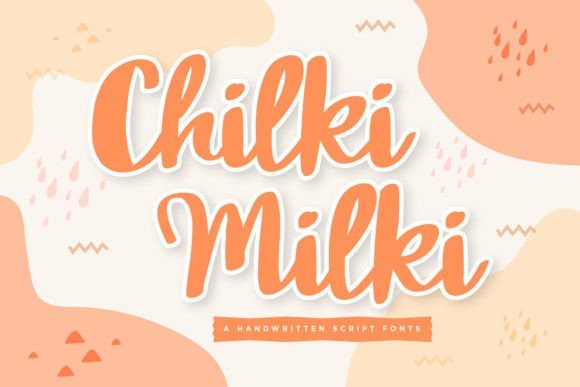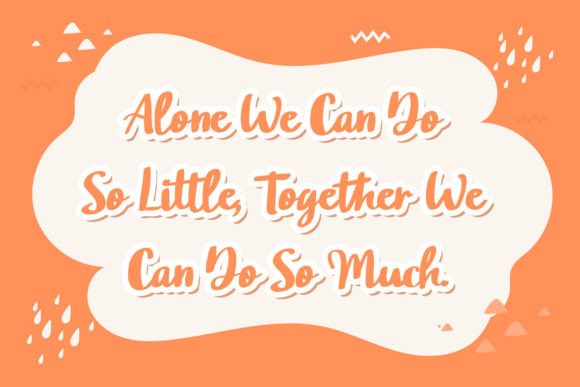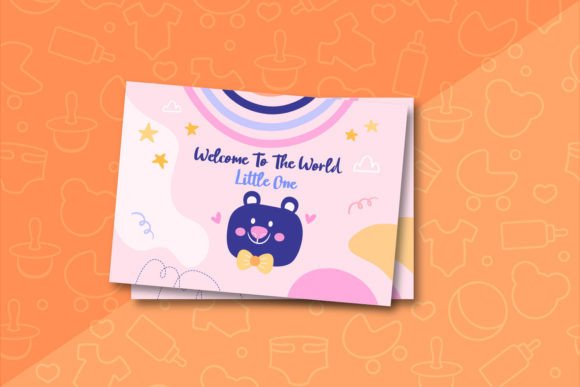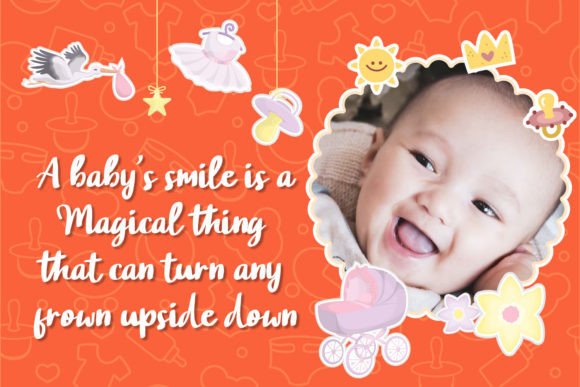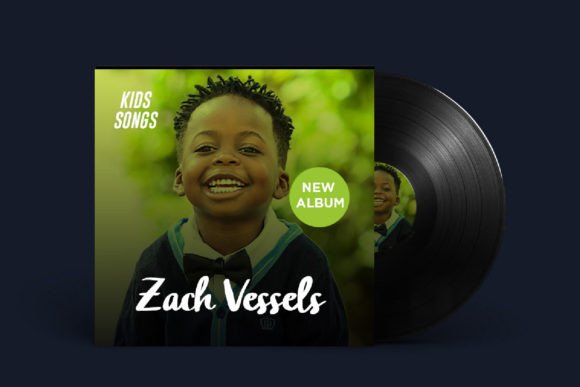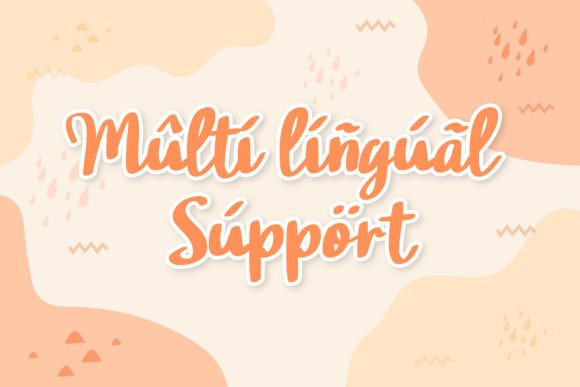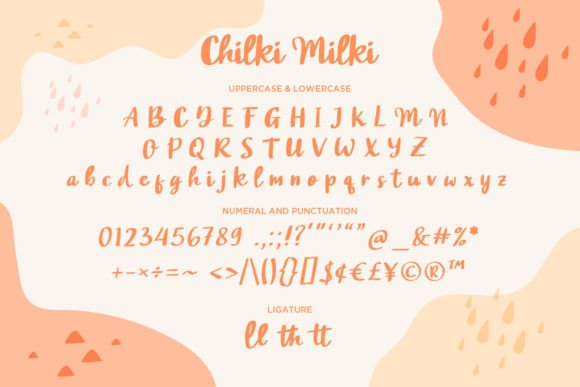
Unleash the Charm of Handwritten Beauty with Chilki Milki Font
Who among us hasn’t felt the urge to add a personal touch to our work? Whether it’s a heartfelt message, a quote that inspires, or a branding element that stands out – we’ve all been there. The search for the perfect handwritten font can be a daunting task, but what if I told you that you’ve just found your new go-to? Introducing the Chilki Milki Font, a Modern Handwritten script font that’s about to take your projects to the next level.
This versatile font is perfect for designers looking to add a touch of elegance and sophistication to their work. Whether you’re working on branding, promotional ads, quote design, or merchandise, Chilki Milki Font is sure to impress. Its unique charm and character will elevate your designs, making them stand out in a crowded market.
Chilki Milki Font Key Features
- Font Family: Chilki Milki
- Unique Characteristics: Hand-drawn, cursive script with a playful and whimsical feel, perfect for creative and artistic projects
Chilki Milki Font Review
I’ve had the chance to play around with the Chilki Milki font, and I have mixed feelings about it.
- ✨ The font’s unique and playful design is definitely a head-turner. It’s perfect for projects that need a bit of whimsy and personality.
- ✨ Chilki Milki is highly legible, even at smaller font sizes, which is a big plus for designers who need to ensure their text is readable across different devices and platforms.
- ⚠️ The font’s cursive nature can make it difficult to use for body text, especially for longer blocks of text. It can be overwhelming and hard to read.
- ⚠️ Chilki Milki is not ideal for projects that require a more formal or professional tone. It’s better suited for more casual or creative projects.
Overall, I think Chilki Milki is a great addition to any designer’s toolkit, but it’s not a one-size-fits-all solution. It’s perfect for projects that need a bit of flair and personality, but may not be the best choice for more formal or professional work.
The Chilki Milki font is ideal for:
– Children’s book covers and illustrations
– Party invitations and decorations
– Food and drink labels and packaging
– Educational materials and worksheets
– Any design that requires a playful, whimsical touch
For the best results, use the Chilki Milki font in combination with bright, bold colors and playful graphics. Experiment with different font sizes and styles to create visual interest and emphasize key messages. Don’t be afraid to mix and match the font with other fonts to create a unique and eye-catching design.